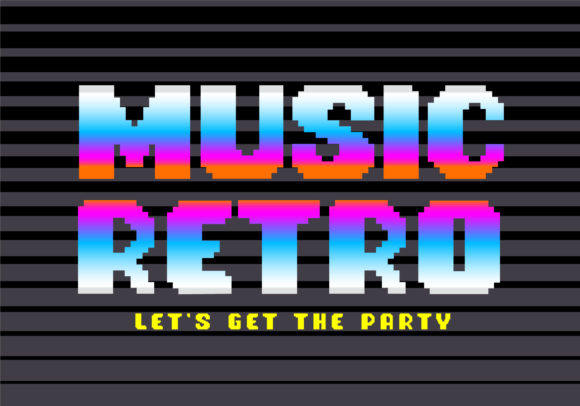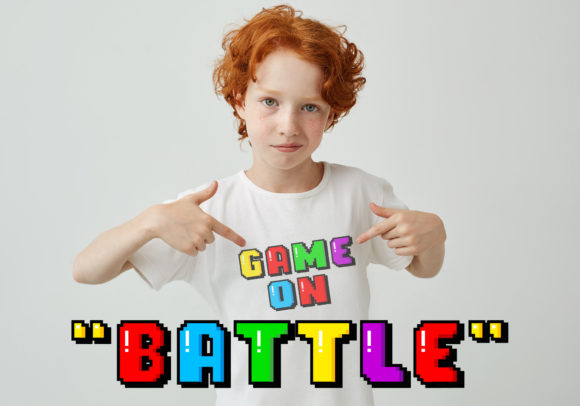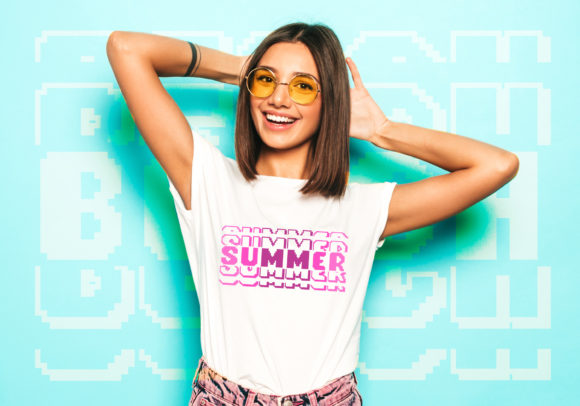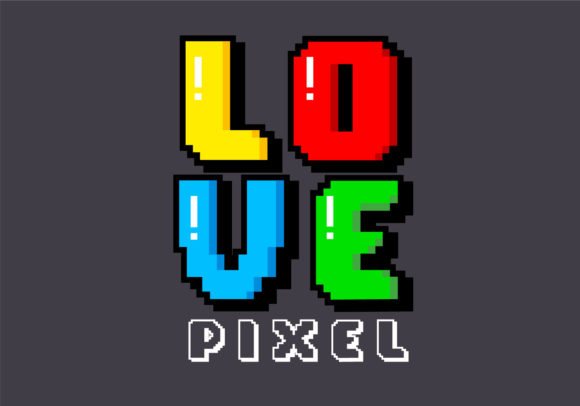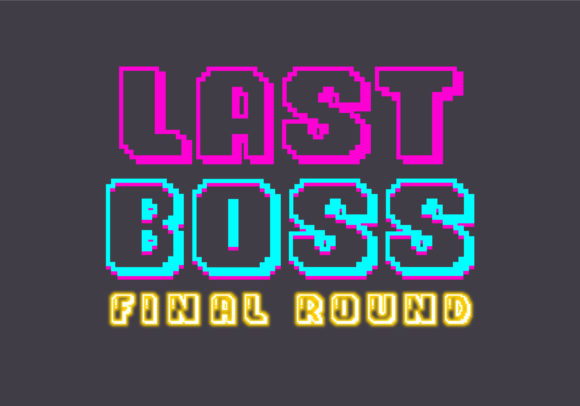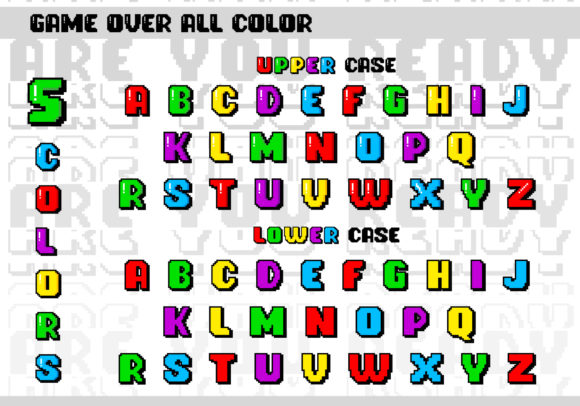
Game Over Font: Elevate Your Designs with a Fun and Colorful Twist
Are you tired of using the same old fonts for your designs? Look no further! Introducing Game Over, a fun, decorative, and color font that’s perfect for creating unique and eye-catching designs. With its cute and friendly vibe, this font is ideal for a wide range of projects, from book covers and birthday cards to T-shirts and greeting cards.
What Makes Game Over Font So Special?
Game Over is not just any ordinary font. It’s a PUA (Private Use Area) encoded font, which means you can access a wide range of amazing glyphs and ligatures with ease. This font is perfect for designers and crafters who want to add a personal touch to their work. With Game Over, you can create designs that stand out from the crowd and showcase your creativity.
Endless Design Possibilities with Game Over Font
With Game Over, the design possibilities are endless! Here are just a few ideas to get you started:
- Book covers: Add a playful touch to your book covers with Game Over’s colorful and fun design.
- Birthday cards: Create personalized birthday cards that will make the recipient smile.
- T-shirts: Design eye-catching T-shirts that will make you stand out from the crowd.
- Greeting cards: Add a touch of whimsy to your greeting cards with Game Over’s cute and friendly vibe.
Why Choose Game Over Font?
So, why choose Game Over font for your designs? Here are just a few reasons:
- Unique and eye-catching design: Game Over’s colorful and fun design is sure to grab attention.
- Easy to use: With PUA encoding, you can access a wide range of glyphs and ligatures with ease.
Tips and Tricks for Getting the Most Out of Game Over Font
Here are a few tips and tricks to help you get the most out of Game Over font:
- Experiment with different colors: Game Over’s color font design makes it easy to experiment with different colors and combinations.
- Mix and match glyphs: With PUA encoding, you can mix and match glyphs and ligatures to create unique and personalized designs.
- Use it for personal projects: Game Over is perfect for personal projects, such as creating custom gifts or decorations.
In conclusion, Game Over font is a fun, decorative, and color font that’s perfect for designers and crafters who want to add a playful touch to their work. With its cute and friendly vibe, PUA encoding, and compatibility with popular design software, Game Over is the perfect choice for a wide range of projects. So why wait? Download Game Over font today and start creating unique and eye-catching designs that showcase your creativity!